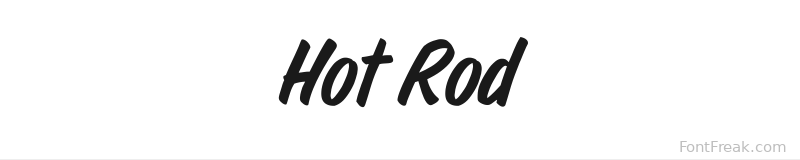
Hot Rod
The Hot Rod font by BLKBK Fonts is a striking display typeface that embodies the spirit of speed and adventure. This freeware font features a bold, slanted design that evokes a sense of motion, making it perfect for projects that aim to capture attention. With its thick strokes and dynamic curves, Hot Rod stands out with its high contrast and energetic style, offering a visually compelling choice for designers looking to make an impact.
The font’s sweeping lines and slightly irregular edges add a touch of personality, creating a hand-crafted feel that resonates well with audiences. The spacing is balanced, ensuring readability while retaining a lively character that enhances visual appeal. The decorative elements in its design suggest a playful yet assertive attitude, making it suitable for various creative applications.
Hot Rod is an excellent choice for use in a range of projects. It shines on movie posters, where its dynamic style can convey excitement and drama. Additionally, it can add flair to restaurant menus, giving a casual dining experience a unique twist. Its energetic vibe also makes it ideal for promotional materials for car shows or racing events. Furthermore, graphic designers looking to create eye-catching logos will find that Hot Rod's distinctive character can effectively represent brands that value speed and adventure.